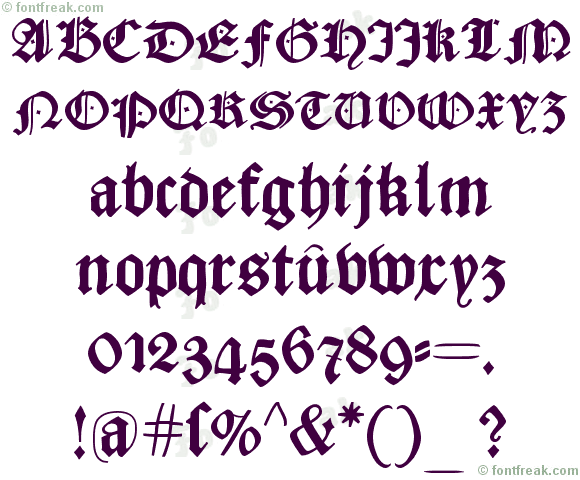
CaslonishFraxx
About CaslonishFraxx
CaslonishFraxx by Manfred Klein is a captivating serif font that embodies a unique blend of classic elegance and contemporary flair. This font showcases a distinct stroke weight that varies throughout, creating a sense of dynamism and movement. The contrast between thick and thin lines adds depth to its appearance, while the carefully considered spacing enhances readability. Decorative elements, such as serifs with pointed tips and subtle flourishes, imbue the typeface with a touch of sophistication, making it suitable for various design applications.
This versatile font is particularly well-suited for wedding invitations, where its elegance can set a romantic tone. It also shines in movie posters, lending a dramatic flair that captures attention. Restaurant menus can benefit from CaslonishFraxx, as its stylish nature elevates the overall dining experience and reflects the quality of the cuisine. Additionally, it can be used effectively for branding materials, helping small business owners create a memorable identity that stands out in a crowded marketplace. Content creators will find its unique aesthetic appealing for various projects, from social media graphics to promotional materials.
What truly sets the CaslonishFraxx font apart is its ability to merge traditional serif characteristics with a modern twist, ensuring that it captures attention while remaining highly functional. Whether you're designing for print or digital platforms, this font stands out as a stylish choice that can adapt to a range of creative needs.